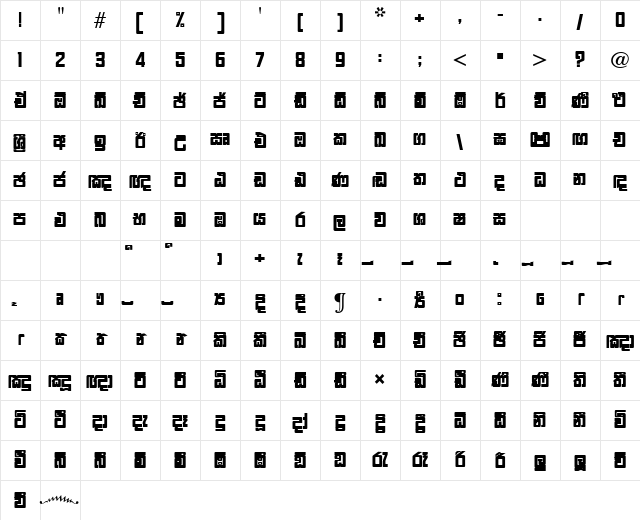
Complete IsiGemunu x glyph index. Displaying only characters natively supported by IsiGemunu x font.
IsiGemunu is a composed and adaptable typeface that performs quietly and consistently across a wide range of design contexts.